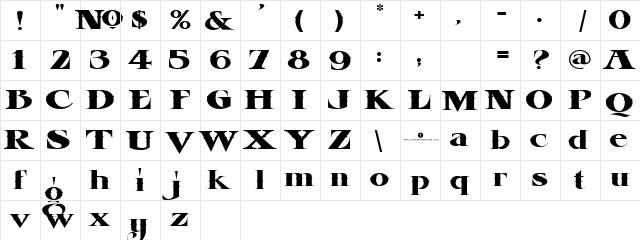
LHF Esoteric New WESTERN Regular
Design Context for LHF Esoteric New WESTERN Typeface
LHF Esoteric New WESTERN echoes the hand-painted signage and woodblock typography of the American frontier, with a warm, rugged personality.
Perfect for barbecue restaurants, country music branding, vintage poster design, and rustic packaging.
Font Pairing: Combine LHF Esoteric New WESTERN with a simple slab or neutral sans — period-accurate companions reinforce the vintage feel without competing for attention.
Pro Tip: Pair LHF Esoteric New WESTERN with aged textures or distressed backgrounds to amplify its vintage personality.